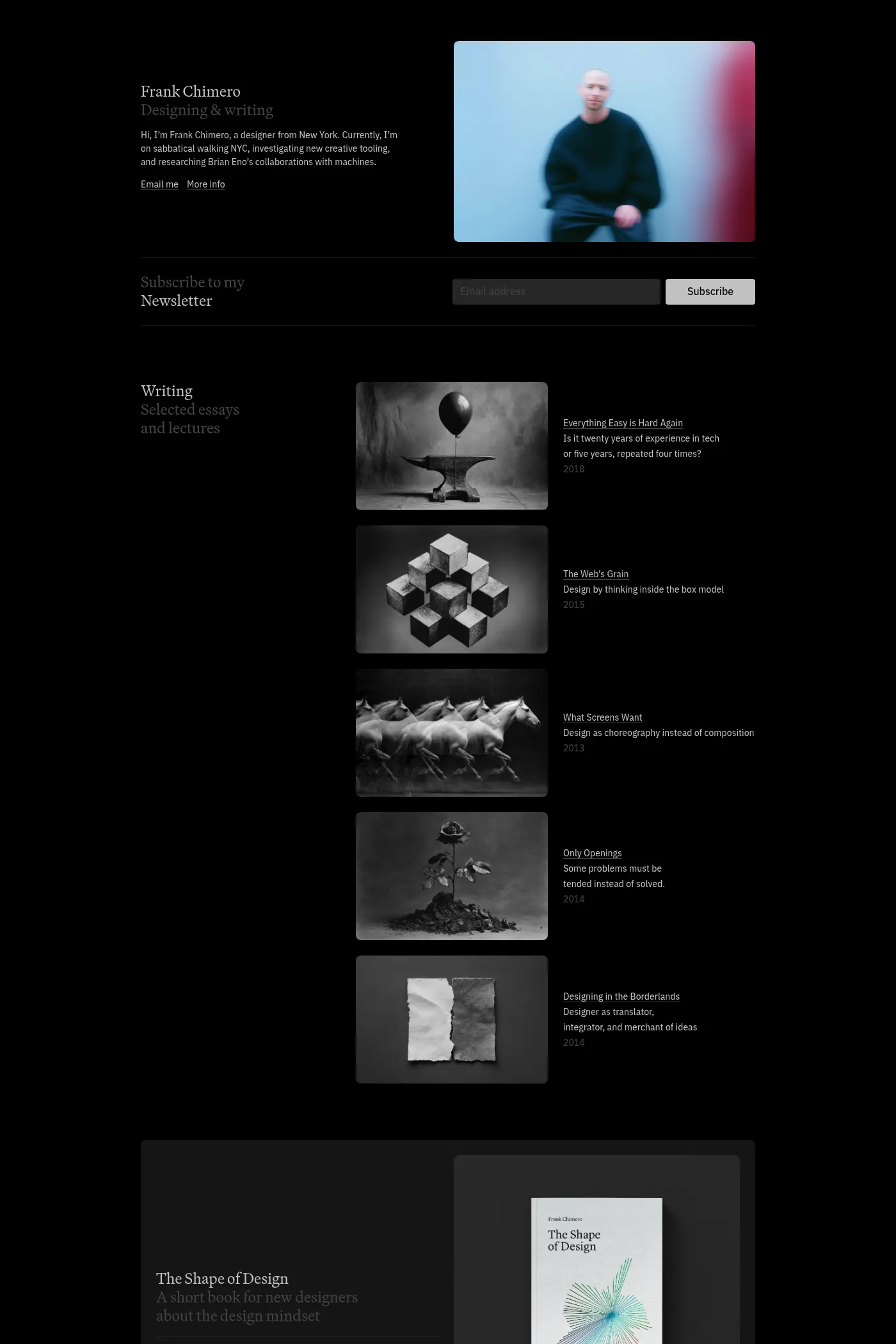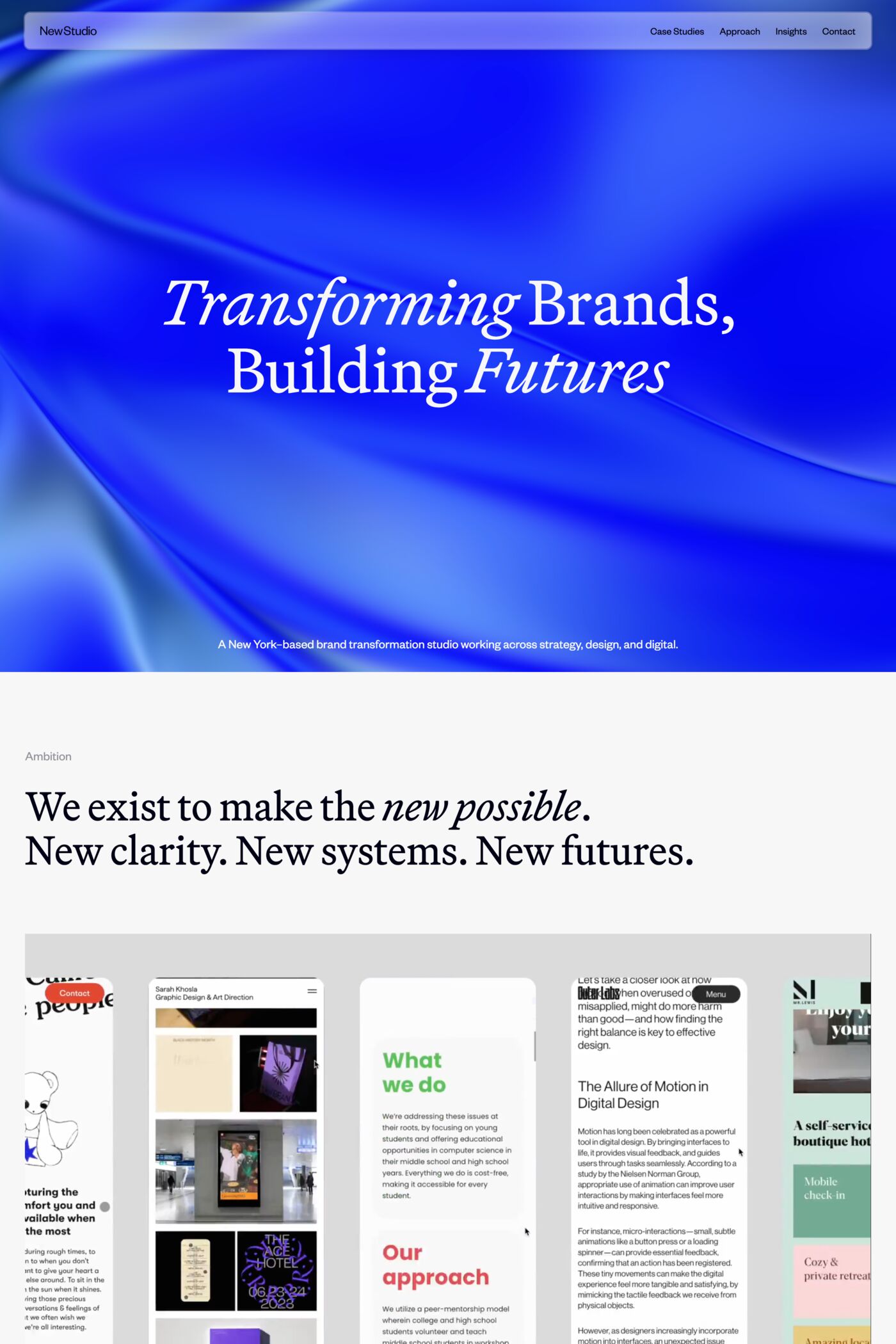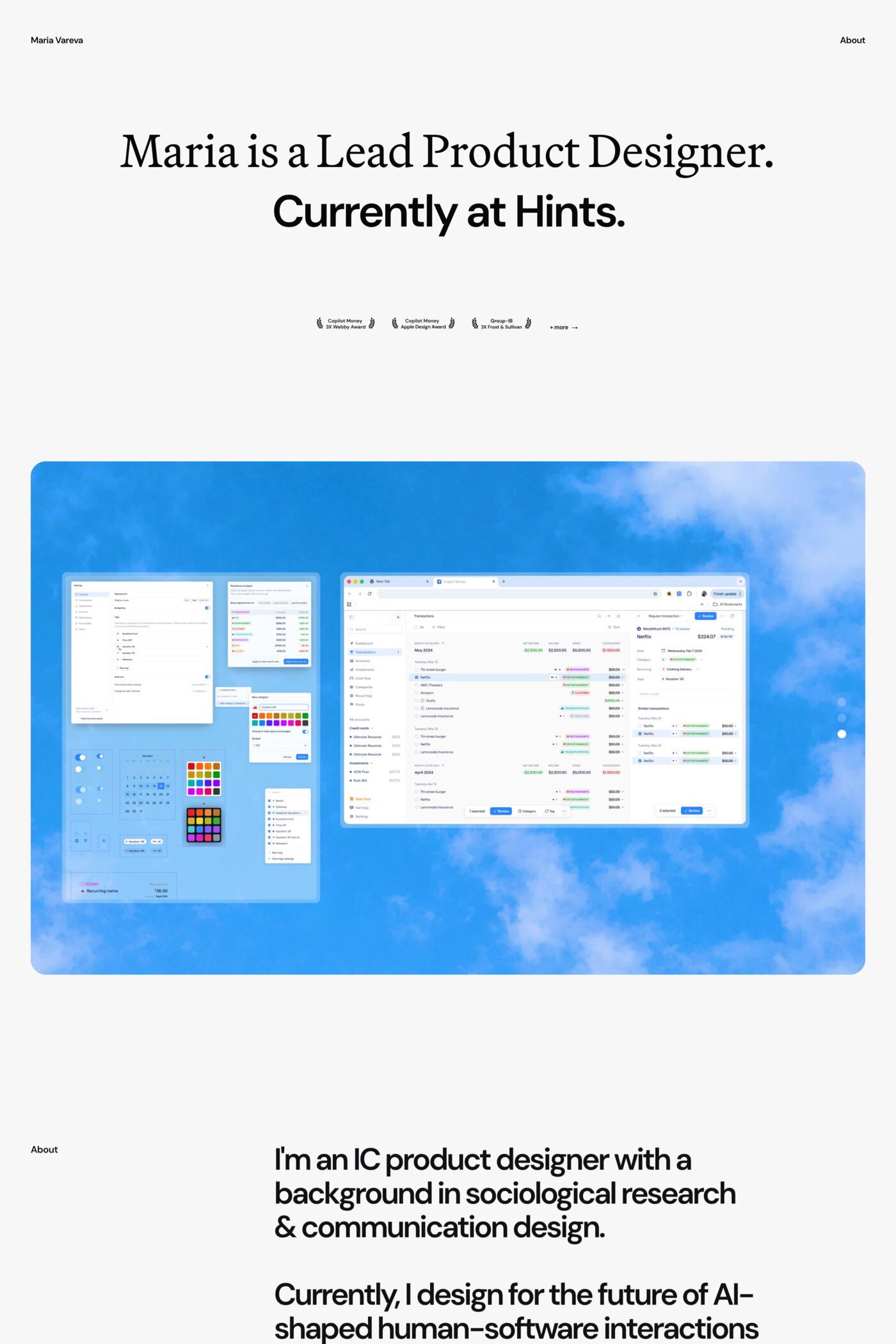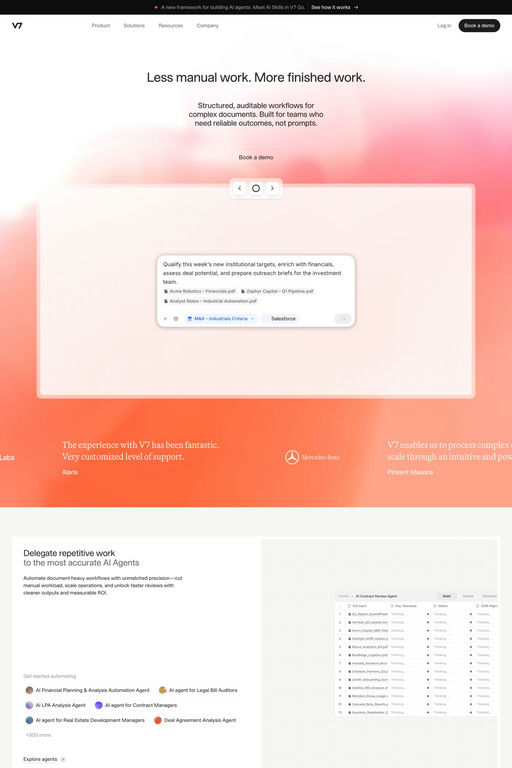
Martina Plantijn is a serif typeface from Klim Type Foundry.
Martina Plantijn is a better Plantin. Informed by the workhorse qualities of Frank Hinman Pierpont’s typeface and expanding upon his research of 16th century type at the Plantin-Moretus Museum in Antwerp, Martina Plantijn makes decisive digital updates across its roman and italic cuts.